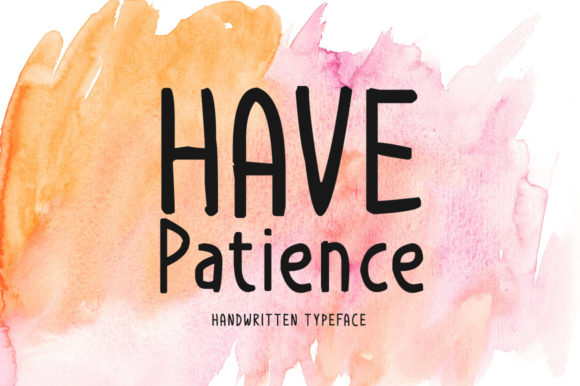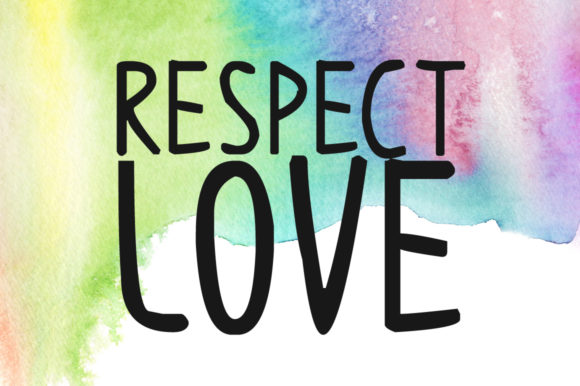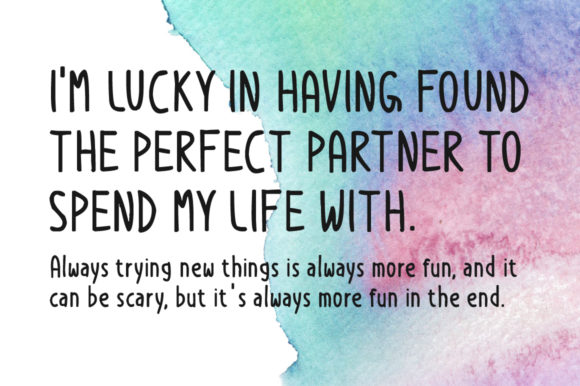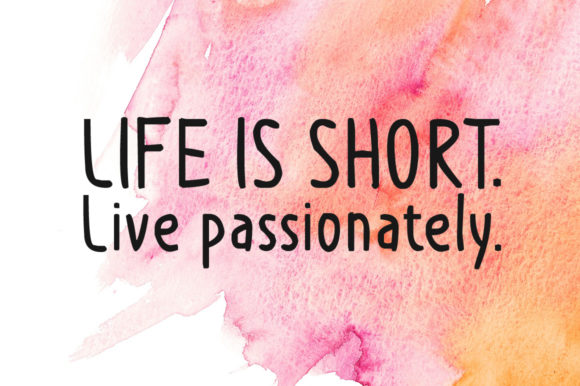
Have Patience Font
About Have Patience Font
Have Patience is a brand new handwritten font.It’s perfectly suited for stationery, logos, t-shirts, papers, print designs, website headers, photo frames, flyers, music covers, posters, image sliders and much more!